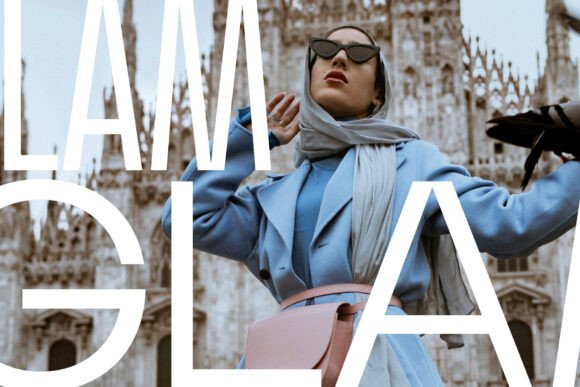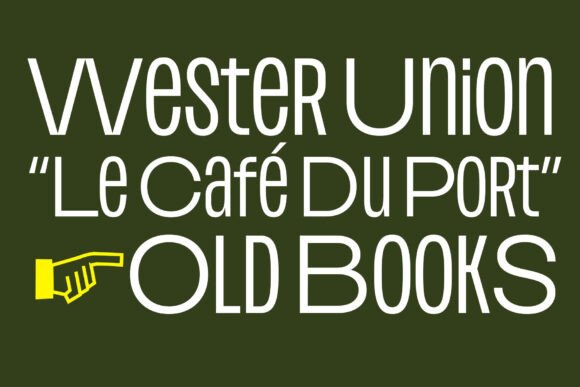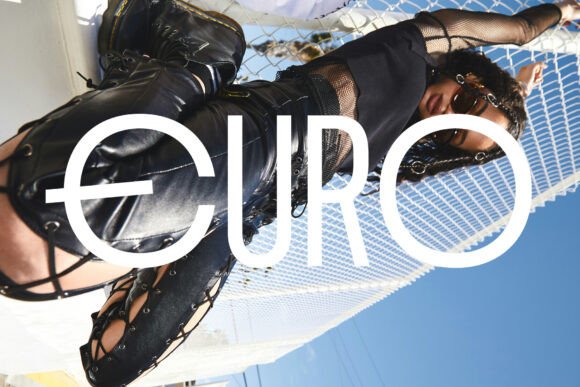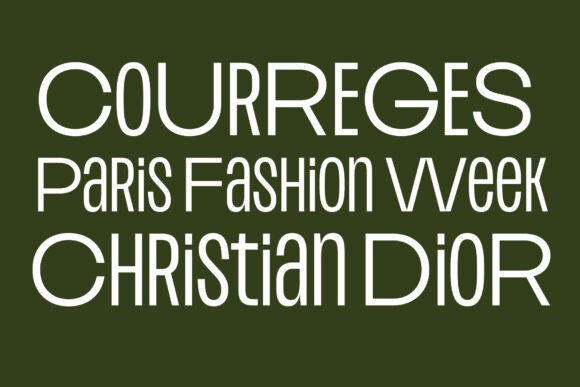
Introduction to Plex Beta Medium Font
PlexBeta Medium offers a perfect midpoint between subtlety and strength.
Its balanced stroke weight makes it highly versatileโideal for web content, product design, and modern branding It preserves the sleek, elongated PlexBeta aesthetic while ensuring excellent readability across platforms.
Key Features of Plex Beta Medium Font